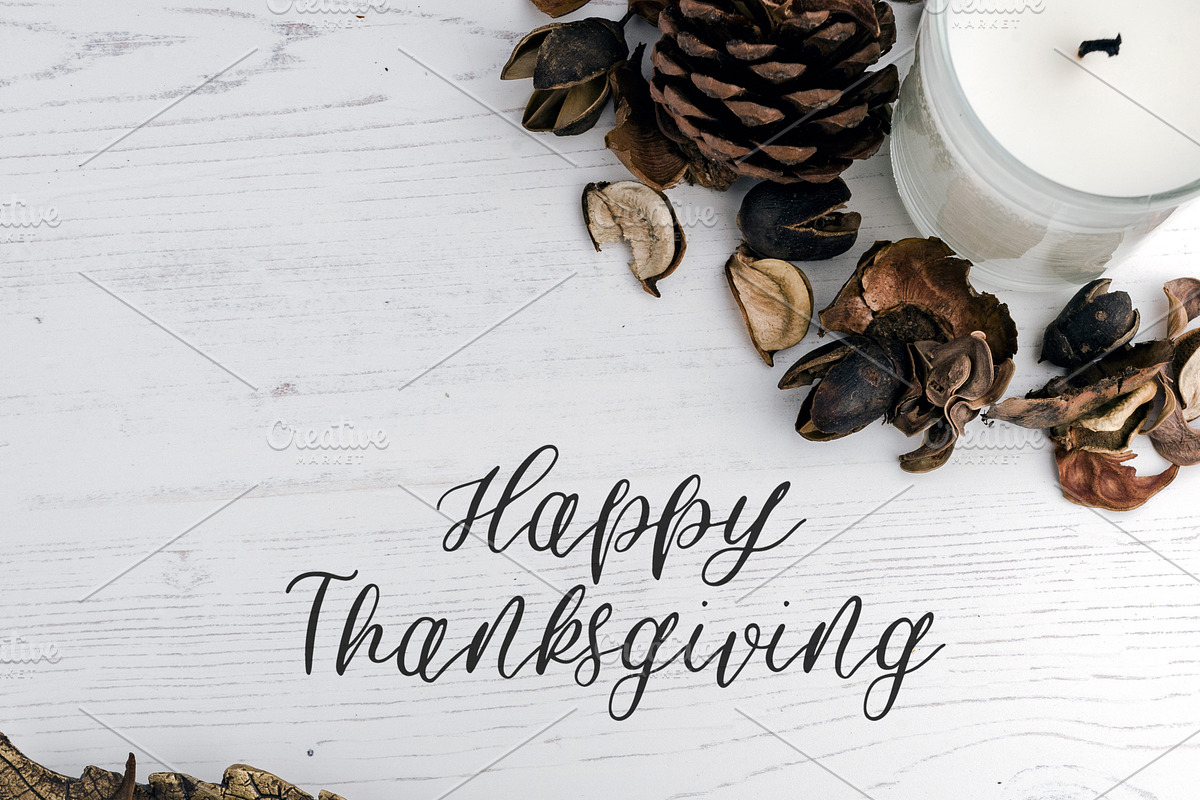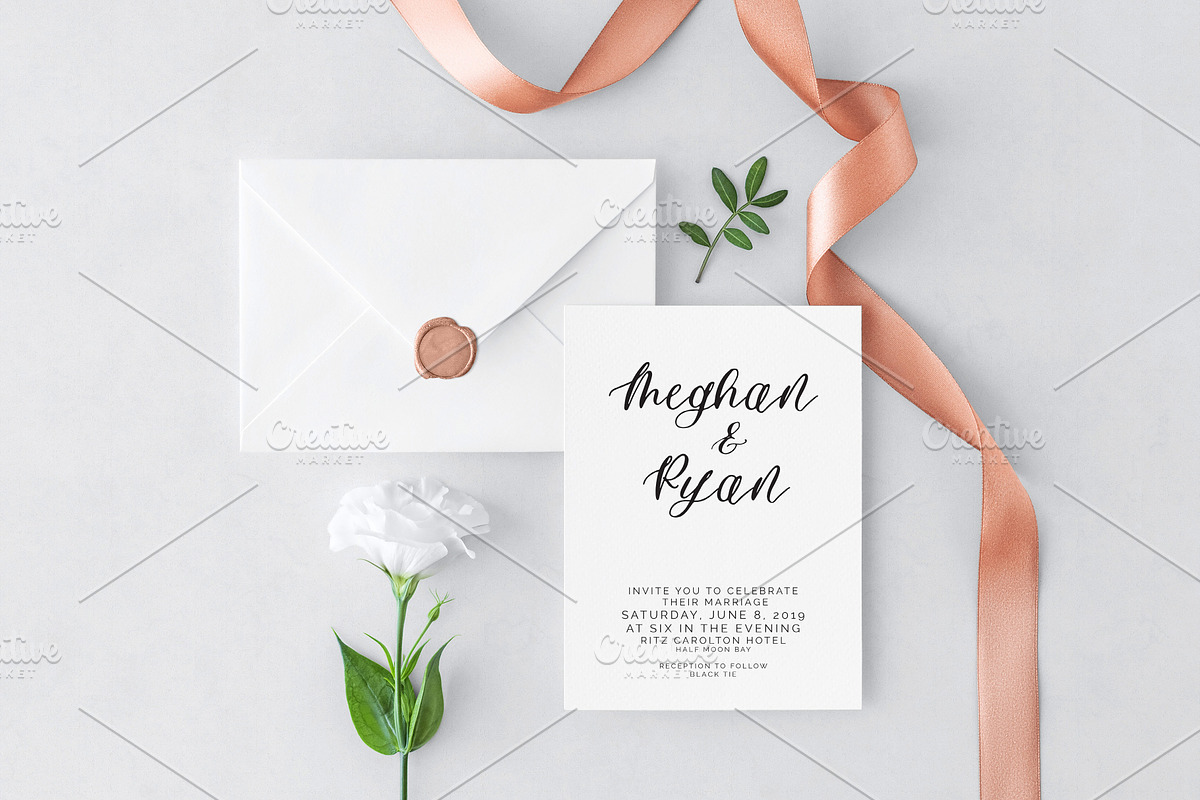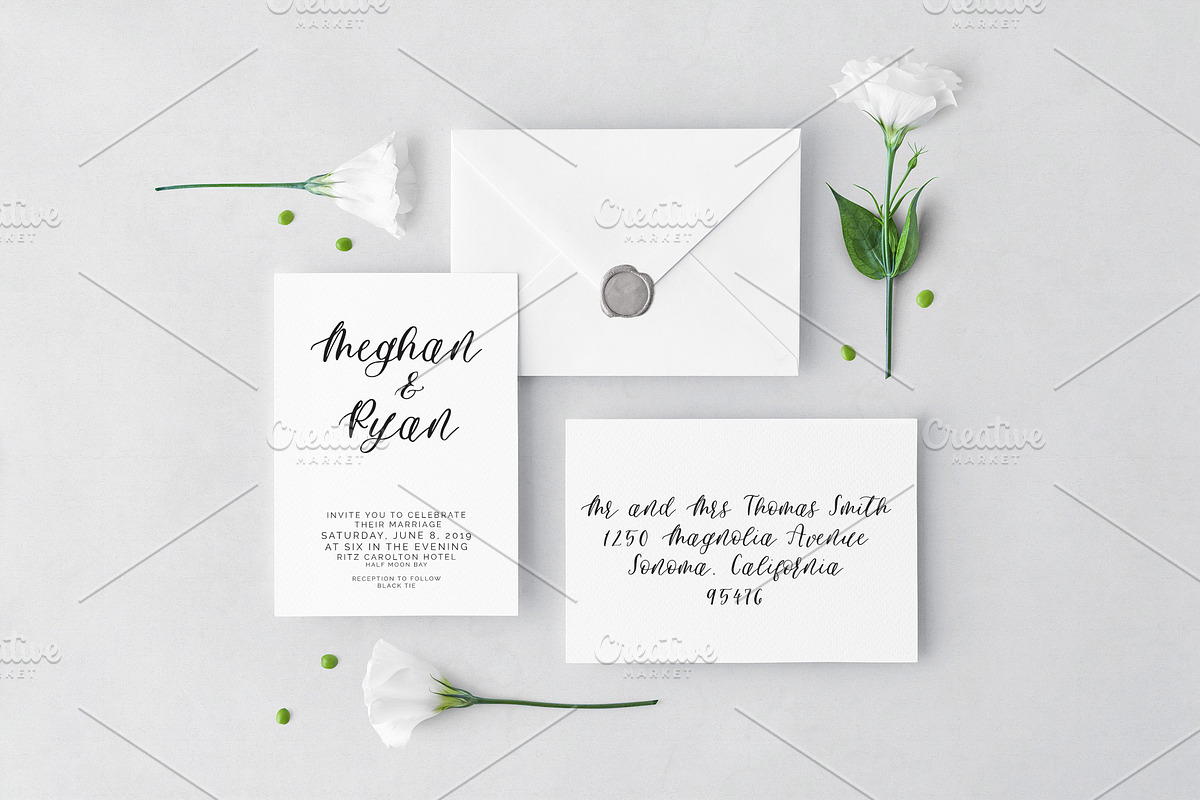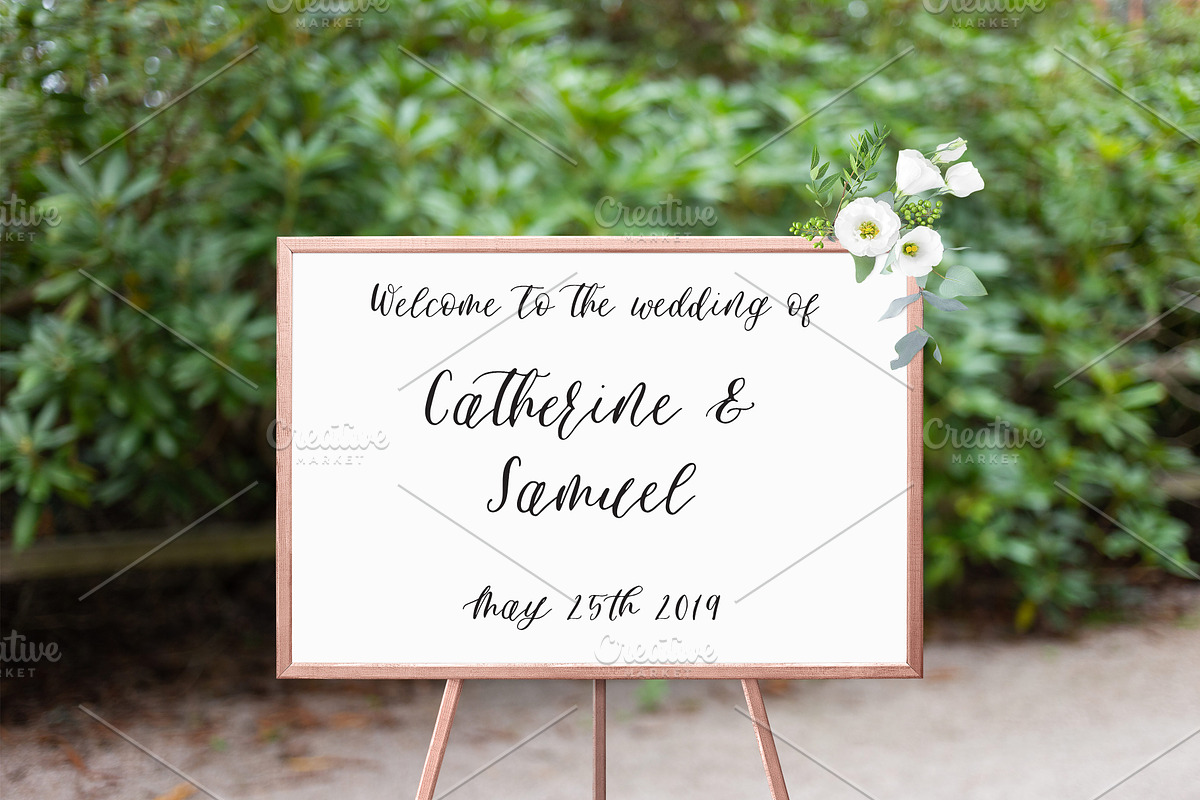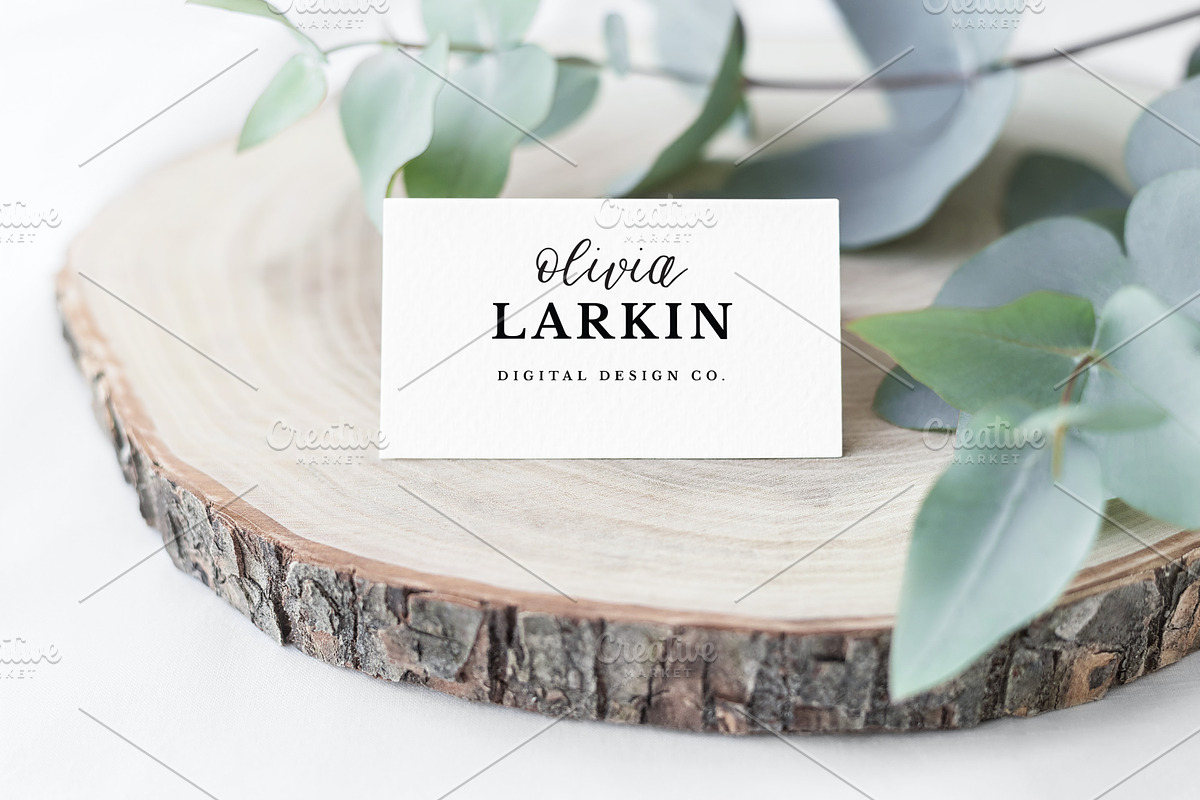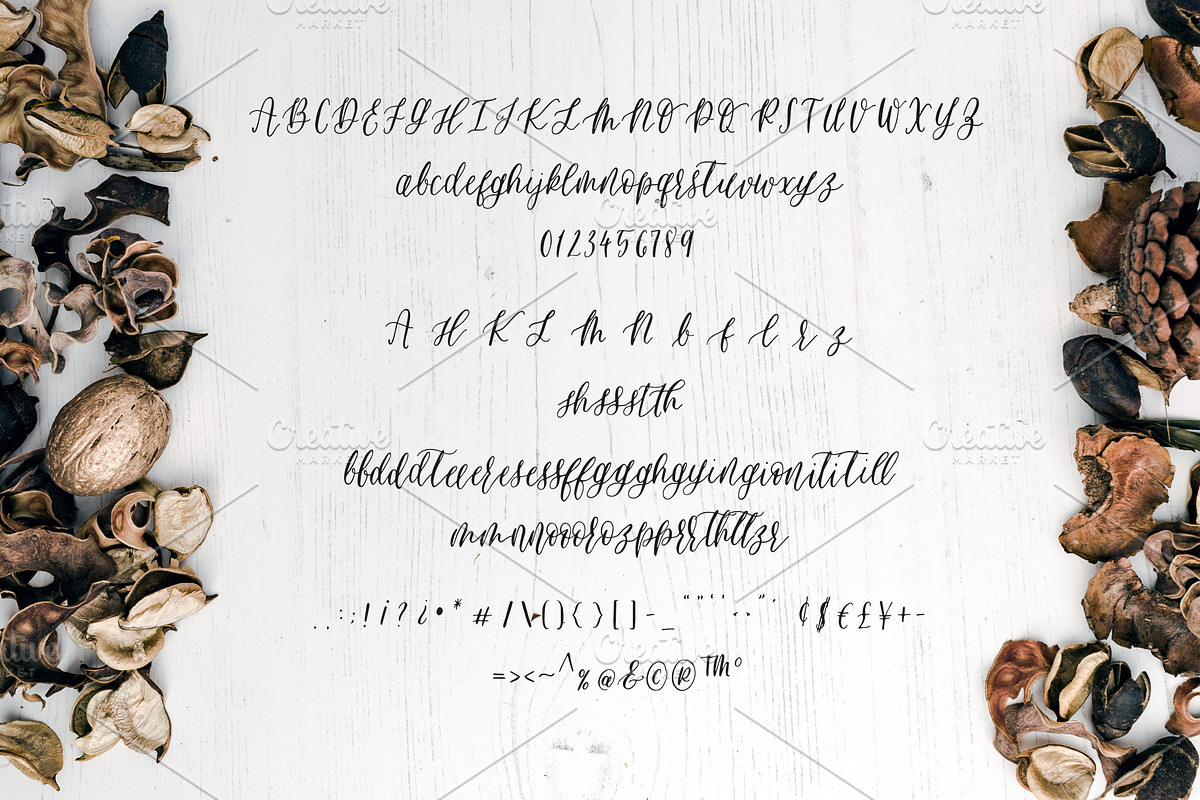
Blue Pumpkin Font
BLUE PUMPKIN DIP PEN CALLIGRAPHY FONT
Inspired by fall parties and cozy winter weddings!
I have loved creating this unique, handcrafted dip pen calligraphy font. This was made with my oblique pen holder and nikko G nib. The font is whimsical and has some bounce in it, perfect for party decor yet maintaining a classic feel to make all of your diy signage for your wedding day.
Blue Pumpkin includes full set of uppercase and lowercase letters, symbols, numerals, and punctuation. Blue pumpkin also includes the following ligatures: bb, dd, dt, ee, er, es, ff, gg, gh, gi, hy, in, it, ll, mm, nn, on, oo, or, oq, pp, rr, sh, ss, st, th, ti, tt, zr.